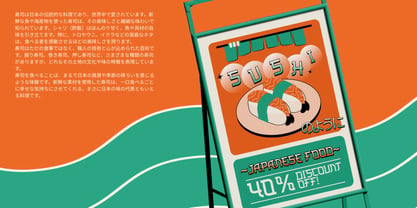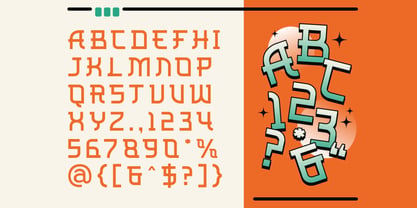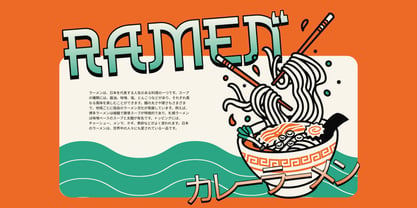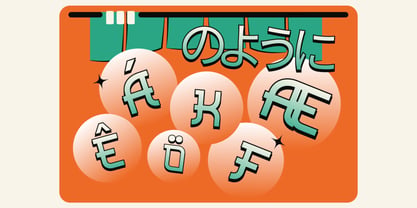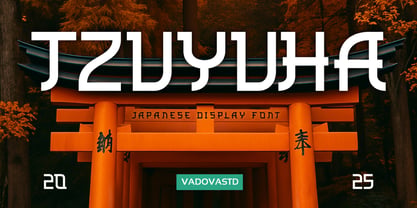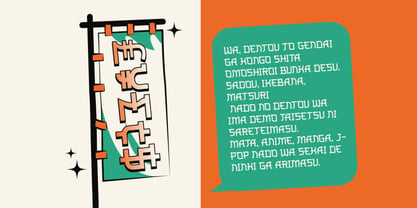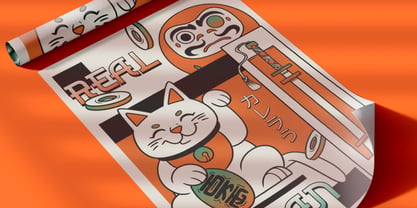
Tzuyuha
Tzuyuha is a bold and creative Japanese-style display font inspired by anime aesthetics, traditional brush strokes, and Tokyo’s pop culture. With quirky curves and cultural flair, it’s perfect for Asian-themed packaging, ramen menus, manga titles, or J-pop branding. This typeface brings a vibrant, youthful personality to any design needing a fun, eye-catching Japanese touch. Suitable For anime title, ramen branding, sushi menu, tokyo signage, game UI, j-pop poster, asian theme, festival flyer, cafe menu, manga cover, kids design, packaging label, comic artwork, event banner, kawaii brand, retro asian poster, merch design, cultural zine, travel brochure.